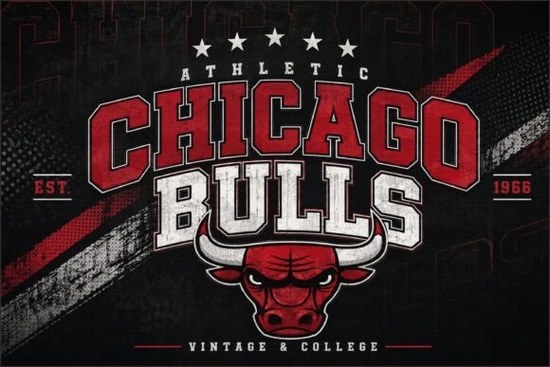
If you're a fan of classic American sports lettering, the Chicago Bulls Font is a fantastic choice. This bold and powerful collegiate-style typeface captures the essence of vintage athletic design, making it perfect for a wide range of creative projects.
What Makes Chicago Bulls Varsity Vintage Font Stand Out?
The Chicago Bulls Varsity Vintage Font is designed with strong slab shapes, outlined details, and a retro athletic feel. These elements combine to create a font that not only looks authentic but also adds a touch of nostalgia to your designs. Whether you're working on sports branding, team merchandise, or vintage-inspired graphics, this font delivers a strong visual impact and an authentic athletic character.
Perfect for Sports Branding and Team Merchandise
One of the standout features of the Chicago Bulls Varsity Vintage Font is its versatility in sports-related projects. It's ideal for creating eye-catching designs for sports jerseys, team merchandise, and posters. The bold, outlined letters make it easy to read from a distance, which is crucial for sports apparel and promotional materials.
Vintage Posters and Retro Typography Projects
For those who love a vintage aesthetic, this font is a great choice for designing posters and other retro-themed graphics. The outlined details and strong slab shapes give it a timeless varsity look, making it perfect for projects that require a classic, nostalgic feel. Whether you're designing for a local sports event or a themed party, this font will add the right touch of authenticity.
Streetwear and Clothing Brands
The Chicago Bulls Varsity Vintage Font is also a hit in the world of streetwear and clothing brands. Its bold and powerful design makes it a popular choice for logos, badges, and other branding elements. The font's modern versatility means it can be used in a variety of contexts, from casual t-shirts to more formal branding materials.
College and University Designs
This font is not just for sports; it's also perfect for college and university designs. Whether you're creating promotional materials for a university event, designing a logo for a student organization, or crafting a poster for a campus activity, the Chicago Bulls Varsity Vintage Font brings a strong, academic feel. Its clean, bold lines and outlined details make it easy to read and visually appealing.
How to Use the Chicago Bulls Varsity Vintage Font Effectively
Final Thoughts
The Chicago Bulls Varsity Vintage Font is a versatile and powerful tool for any designer, crafter, or print-on-demand seller. Its bold, outlined style and retro athletic feel make it perfect for a wide range of creative projects. Whether you're working on sports branding, vintage posters, or streetwear designs, this font is sure to add a touch of authenticity and visual impact.